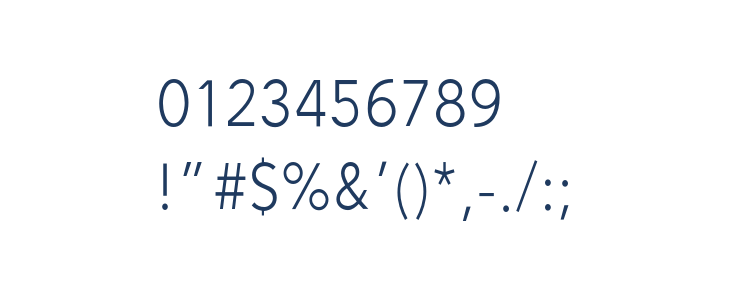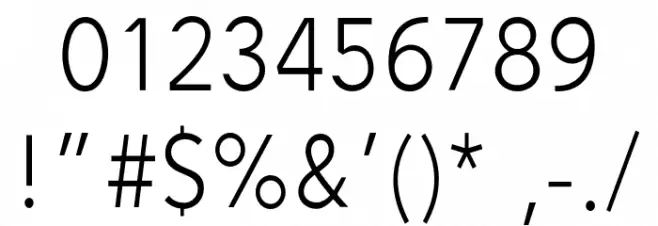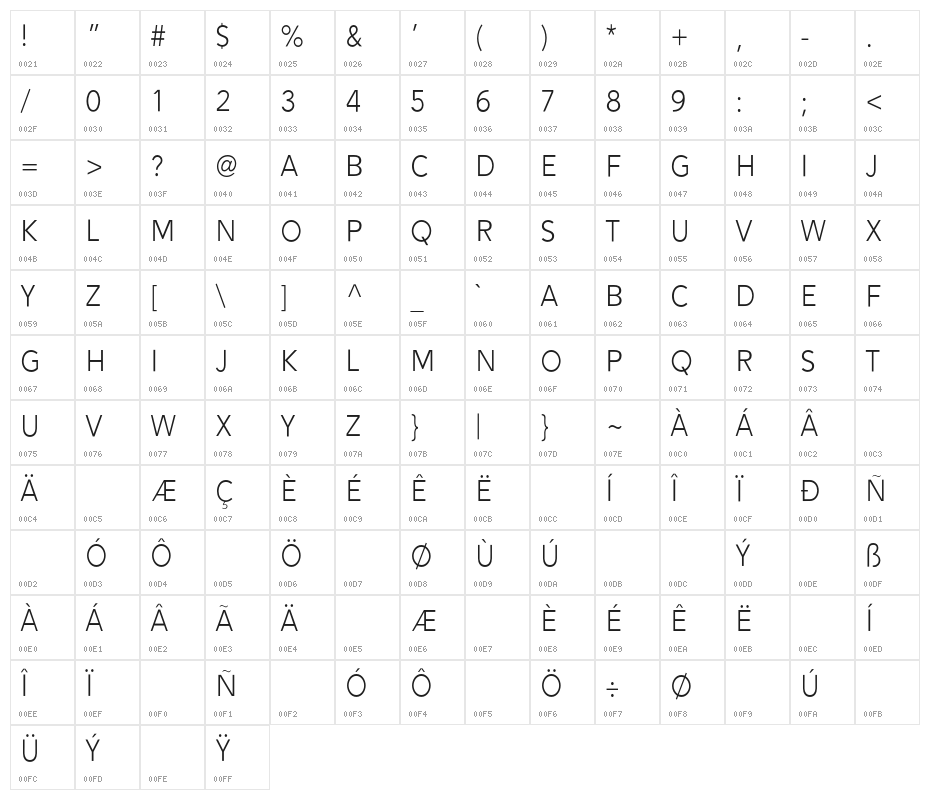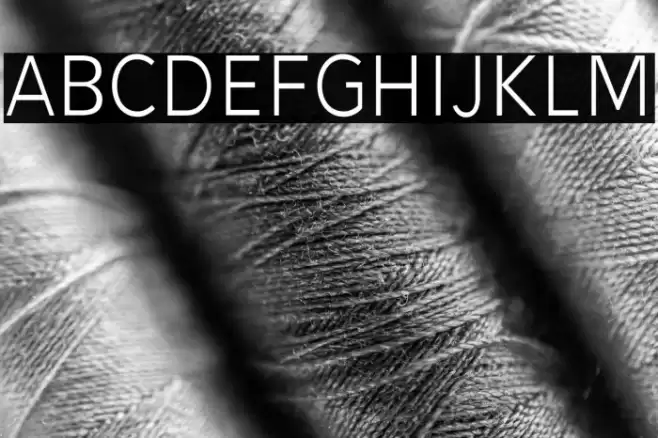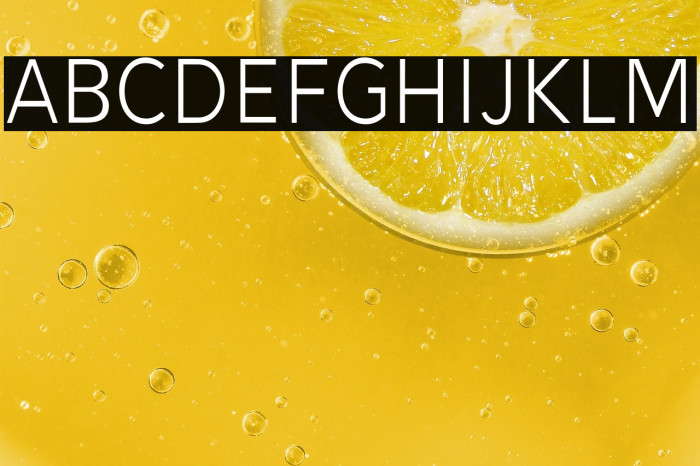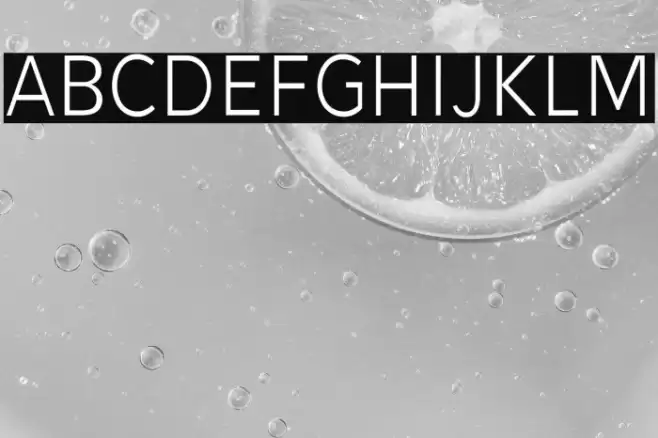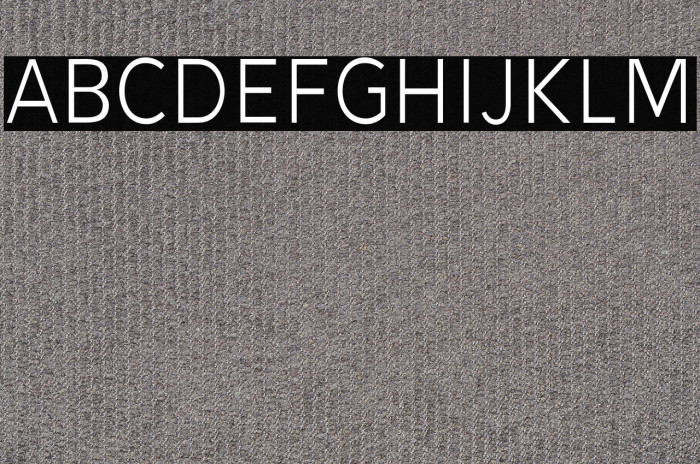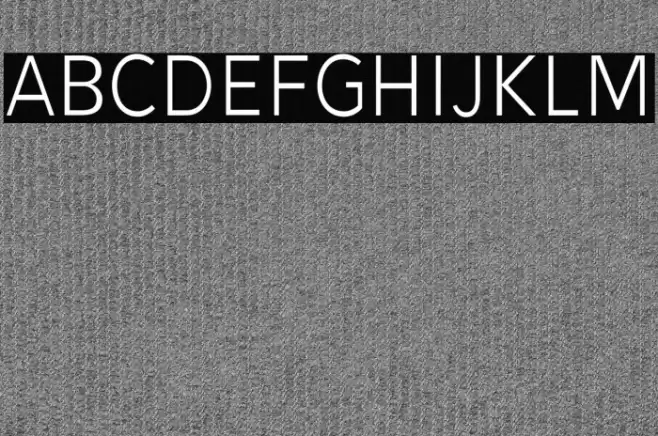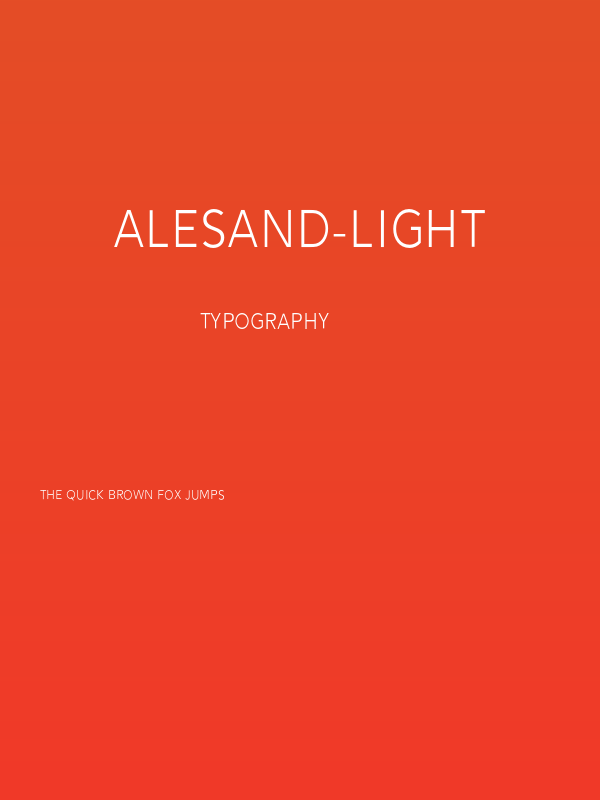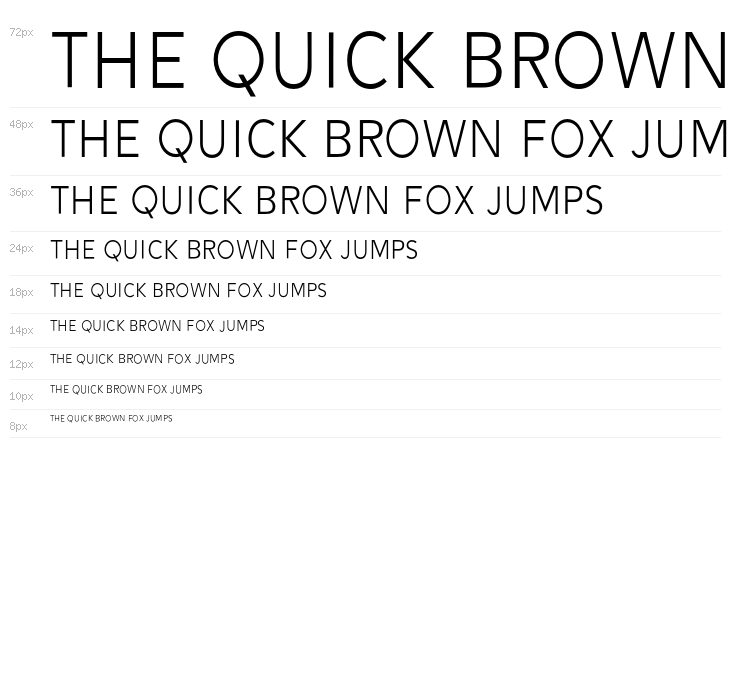
Alesand-Light Font
Alesand-Light Description
This font features a clean and modern sans-serif design, characterized by its light weight and minimalistic style. The characters are evenly spaced with a normal width, providing a balanced and harmonious appearance. The strokes are consistent in thickness, offering low contrast, which contributes to its sleek and contemporary look. The font is versatile and can be used in various design projects, from digital to print, where clarity and readability are essential.
| Proposed Projects | Ideal for branding, web design, corporate materials, and minimalist posters. |